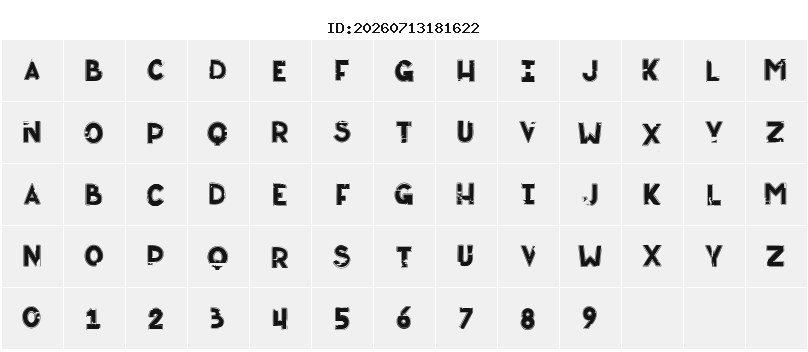
• Font Name: Badcab
• Designer: Matthew Tyndall
• Manufacturer: Dismantle Destroy
Badcab.ttf is a modern, elegant sans-serif font designed for ultimate readability and visual harmony. Perfect for branding, headlines, web design, and print materials.